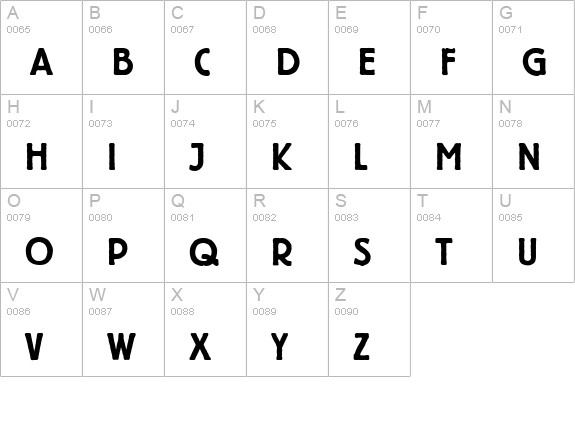
Belfort-Demi Font Details
Belfort-Demi is a sub-bold, structured variant in the Belfort typeface family \xE2\x80\x94 well suited to sub-headlines and emphasised passages.
Belfort-Demi font is a bold and eye-catching typeface that exudes elegance and sophistication. Its strong, clean lines make it perfect for creating impactful designs that demand attention. This versatile font is ideal for a wide range of projects, from logos and branding to headlines and posters. What sets Belfort-Demi font apart is its unique combination of modern style and classic charm. The bold weight of the letters gives it a commanding presence, while the subtle curves and detailing add a touch of refinement. Whether you're designing a sleek corporate identity or a stylish editorial layout, this font is sure to make a statement. And the best part? Belfort-Demi font is completely free to download at FontsMarket.com. So you can elevate your designs without breaking the bank. Don't miss out on this fantastic opportunity to add a touch of sophistication to your projects with Belfort-Demi font.